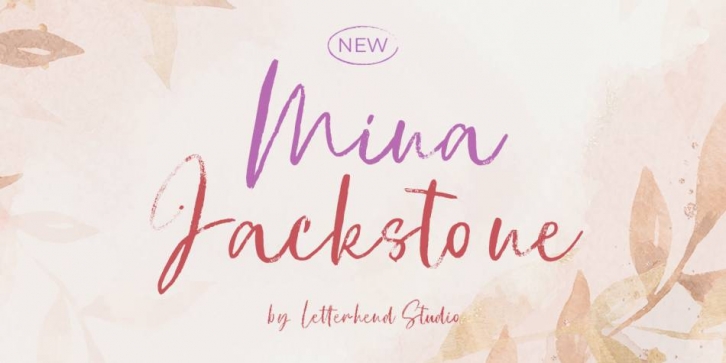
Designed by Hendry Juanda, Mina Jackstone is a modern calligraphy and script font published by Letterhend Studio.
Mina Jackstone is a modern script. This type of font perfectly made to be applied such as invitations, labels, logos, magazines, books, greeting / wedding cards, packaging, fashion, make up, stationery, novels, labels or any type of advertising purpose.
- Solid version
- numbers and punctuation
- multilingual
- ligatures